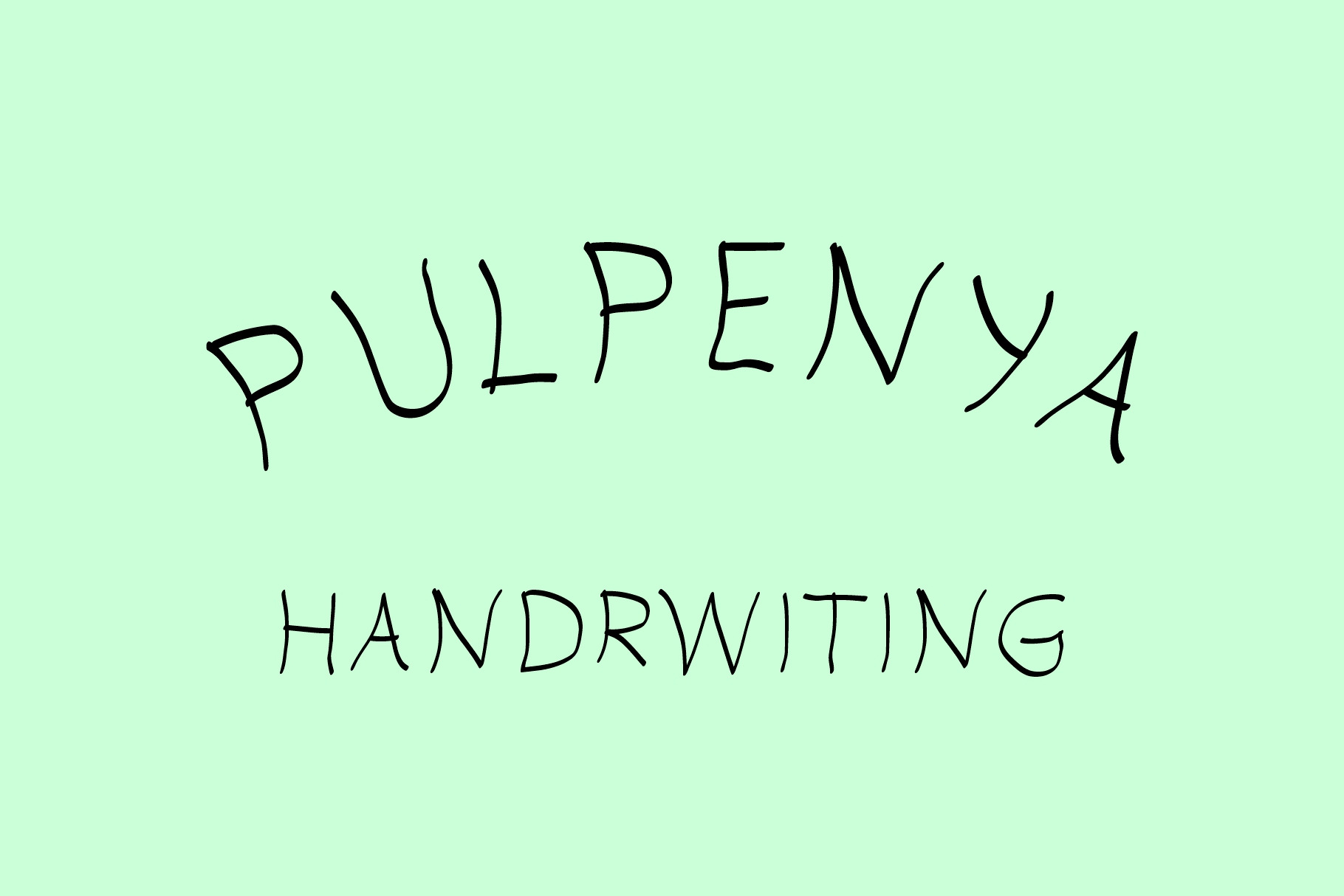
Pulpenya Handwriting Font
Pulpenya Handwriting Font is a unique and playful handwritten typeface, inspired by the casual yet neat strokes of a pen. Perfect for designs that need a personal touch, such as invitations, posters, greeting cards, product packaging, branding, and social media graphics. With its organic letterforms and friendly character, this font will bring a warm and creative vibe to your projects.